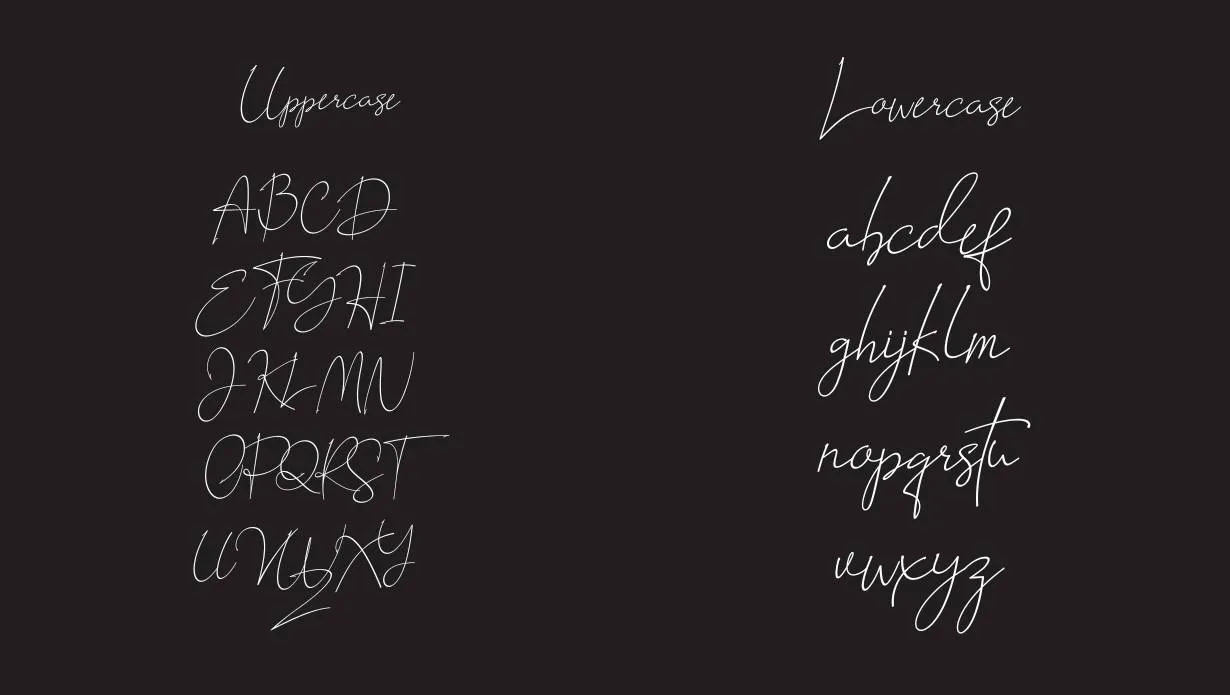
Larosh Sithal Signature Font Free Download
Larosh Sithal Signature Font is a matchless typeface available in single regular weight. The designer of this stunning typeface is an Indonesian typographer named Murtadha Bin Sulaiman and it was published by Malindo Creative.
The parent category of this exquisite typeface is the Script font family but if go into the subcategory it is from the Handwritten Font family.
| Name | Larosh Sithal Signature Font |
| Designer | Murtadha Bin Sulaiman |